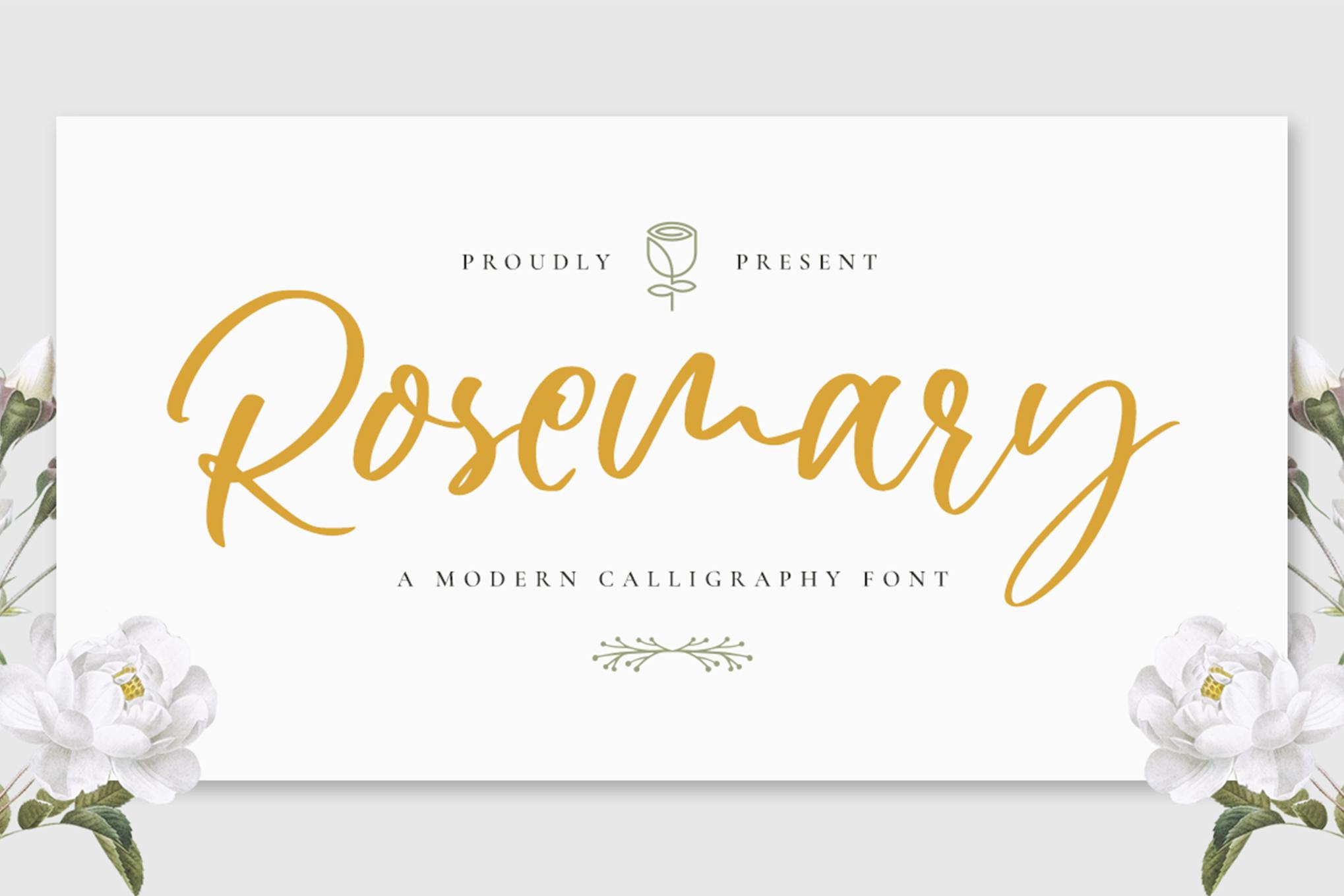
Rosemary - Wedding Font
The Rosemary - Wedding Font excels in botanical design applications including herb garden wedding invitations, botanical bridal branding, natural ceremony logos, aromatic product packaging, garden business cards, botanical portfolios, herb-inspired greeting cards, natural social media graphics, garden event signage, and botanical marketing materials. Its botanical script style makes it perfect for projects requiring natural elegance that communicates herbal beauty and establishes garden brand positioning with audiences seeking botanical wedding experiences and natural sophistication.
What makes the Rosemary - Wedding Font truly exciting is its exceptional ability to capture the aromatic charm and botanical beauty of herb garden weddings through naturally crafted letterforms. The font features flowing, herb-inspired strokes with botanical flourishes and garden proportions that create a distinctly natural appearance. Each character displays remarkable attention to botanical detail with organic curves, herbal connections, and garden spacing that give text a beautifully natural, hand-lettered quality. The font's botanical character and herbal rhythm create an atmosphere of garden tranquility while maintaining natural sophistication and wedding authenticity.
The Rosemary - Wedding Font family typically includes regular weight with extensive character coverage, featuring uppercase and lowercase letters, numerals, punctuation marks, and international characters. The typeface often incorporates stylistic alternates, contextual ligatures, and botanical swashes that enhance its signature garden appeal. These additional elements provide designers with creative flexibility to customize text appearance and achieve more natural-looking herbal handwriting that reflects the font's botanical and garden character.
This botanical signature font distinguishes itself through its remarkable balance of natural charm and sophisticated elegance. Unlike artificial or synthetic fonts that lack botanical appeal, Rosemary - Wedding Font embraces the power of herbal design to create authentic connections with garden wedding audiences. The font's botanical character makes it essential for garden wedding planners, herbal brands, and natural celebration businesses where creating botanical wedding experiences and herbal memories is fundamental to success in natural wedding markets.
The Rosemary - Wedding Font Free Download presents designers with an outstanding opportunity to incorporate botanical elegance into their garden wedding projects. From herb garden wedding venues to botanical celebration brands, this font delivers the natural signature aesthetic that resonates with couples seeking herbal and botanically sophisticated wedding experiences. Its garden appeal ensures your designs communicate botanical authenticity while the signature styling adds distinctive personality that reflects herbal romance and botanical sophistication in any application requiring natural typography solutions.